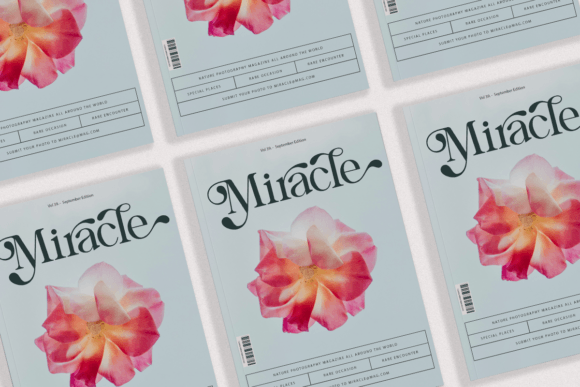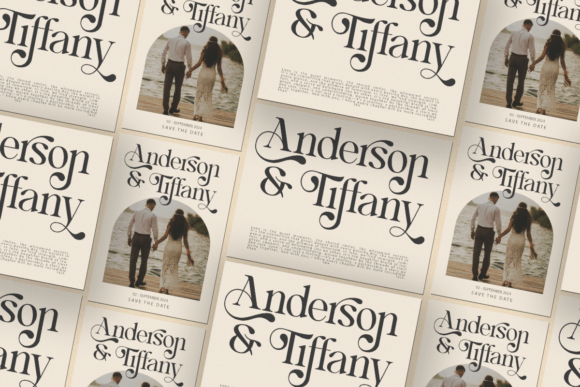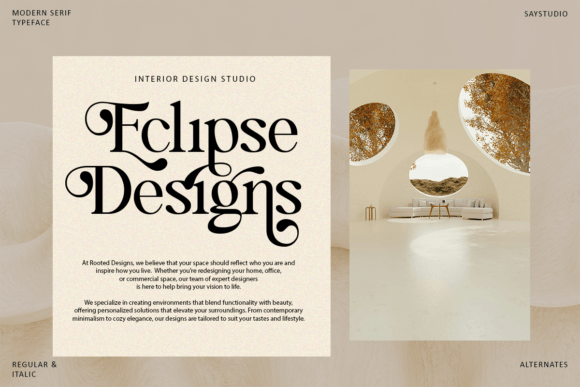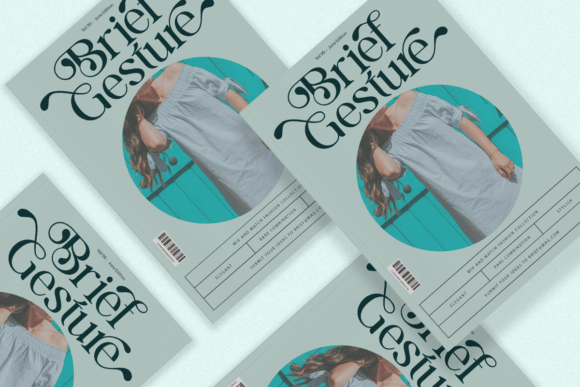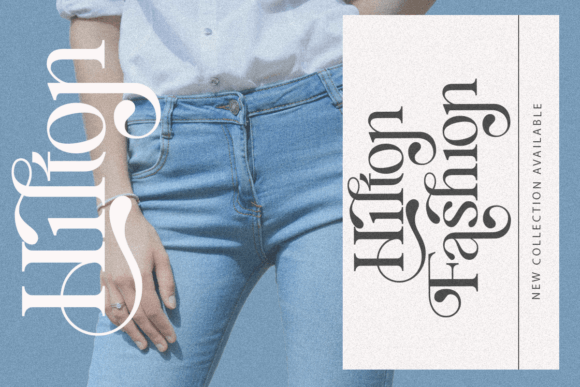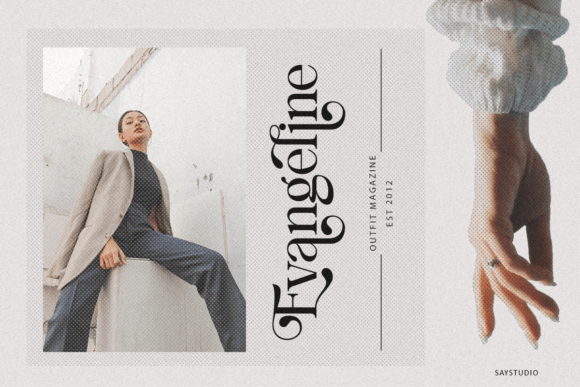
Unveiling the Elegance of Blue Mirage Font: A Modern Serif with a Touch of Sophistication
In the realm of typography, a font is more than just a set of characters; it’s a voice that speaks volumes about the brand, product, or message it represents. Among the myriad of fonts available, Blue Mirage Font stands out as a beacon of elegance and modernity. This modern serif font, with its high contrast and elegant curves, is not just a pretty face; it’s a versatile tool that can elevate any project to new heights of sophistication and personality.
The Distinctive Features of Blue Mirage Font
What sets Blue Mirage Font apart from its contemporaries is its unique blend of traditional serif elements with a modern twist. Here are some of its standout features:
- High Contrast: The font boasts high contrast between its thick and thin strokes, giving it a dramatic and elegant appearance. This contrast is not just visually appealing but also adds a layer of sophistication to any text.
- Elegant Curves: The curves in Blue Mirage Font are meticulously crafted to provide a smooth and luxurious feel. These curves contribute to the font’s overall elegance, making it perfect for projects that demand a refined look.
- Over 60 Unique Alternate Letters: Versatility is key to creating captivating typefaces, and Blue Mirage Font offers more than 60 unique and modern alternate letters. This extensive range of alternatives allows designers to experiment with different styles and tones, ensuring that no two projects have to look the same.
Applications of Blue Mirage Font
The versatility of Blue Mirage Font makes it suitable for a wide array of projects. Here are some areas where this font truly shines:
- Branding and Logos: For brands looking to make a statement, Blue Mirage Font offers the perfect combination of elegance and modernity. Its unique character set ensures that logos and brand names stand out.
- Advertising and Marketing Materials: Whether it’s a billboard, a magazine ad, or a digital campaign, this font can add a touch of sophistication that captures attention and retains it.
- Packaging: For products that require a touch of luxury and elegance, Blue Mirage Font can be the perfect choice. Its readability and aesthetic appeal make it ideal for product labels and packaging.
- Web Design: In the digital realm, Blue Mirage Font can elevate a website’s typography, providing a luxurious and engaging user experience. Its versatility ensures it works well across various devices and screen sizes.
Tips for Using Blue Mirage Font Effectively
To make the most of Blue Mirage Font, consider the following tips:
- Pair it with Simplicity: Let the font be the star of your design. Pairing Blue Mirage Font with simpler design elements can help highlight its elegance.
- Experiment with Alternates: Don’t be afraid to try out the different alternate letters. This can add a unique touch to your designs and make them stand out.
- Consider the Context: While Blue Mirage Font is versatile, it’s essential to consider the context in which it will be used. Ensure it aligns with the brand’s personality and the project’s overall aesthetic.
Blue Mirage Font is more than just a modern serif; it’s a statement of elegance, sophistication, and versatility. With its high contrast, elegant curves, and extensive set of alternate letters, it offers designers a powerful tool to create truly unique and captivating typefaces. Whether you’re working on a branding project, advertising materials, packaging, or web design, Blue Mirage Font can add that touch of sophistication and personality that sets your work apart. Dive into the world of Blue Mirage Font and discover how it can transform your designs into masterpieces of typography.